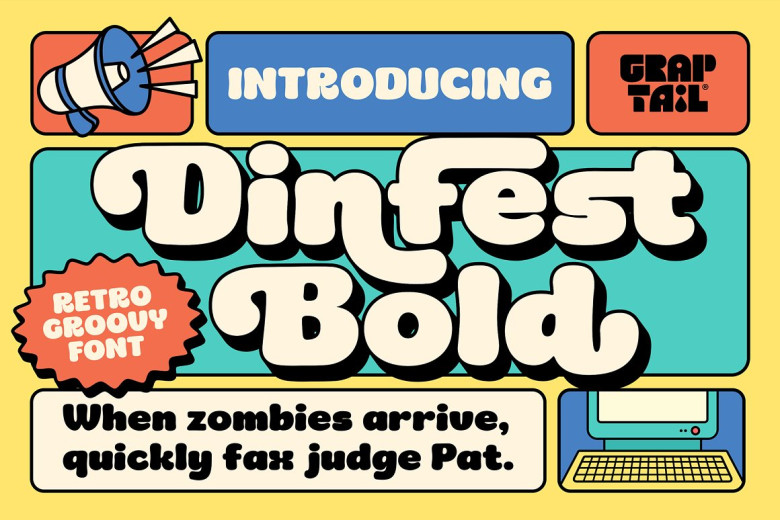
Dinfest Bold Font
Dinfest Bold, inspired by retro images from the 1950s to 1990s, is a display typeface ideal for creating vintage-inspired designs while adding personality and nostalgia. Featuring soft solid style with curving corners and an iconic letter form, Dinfest Bold also comes equipped with different alternatives of ligatures and characters that let you create different styles using one font.
Dinfest Bold Retro Display Font